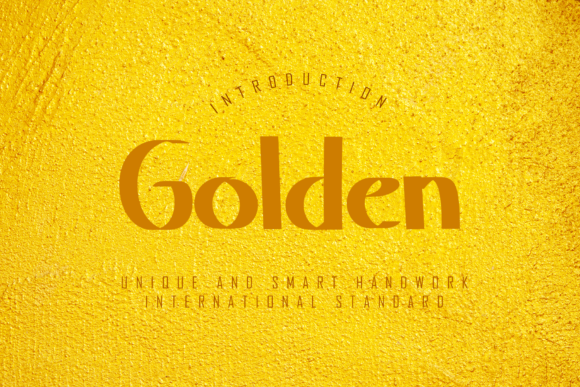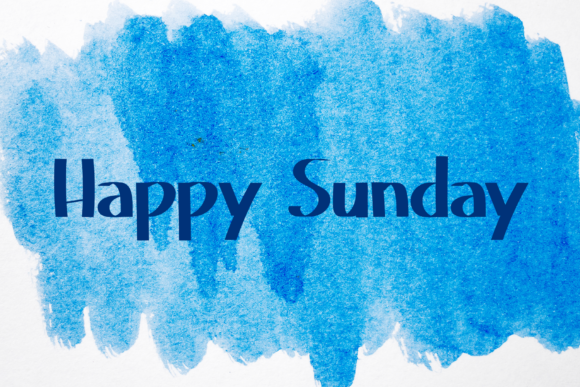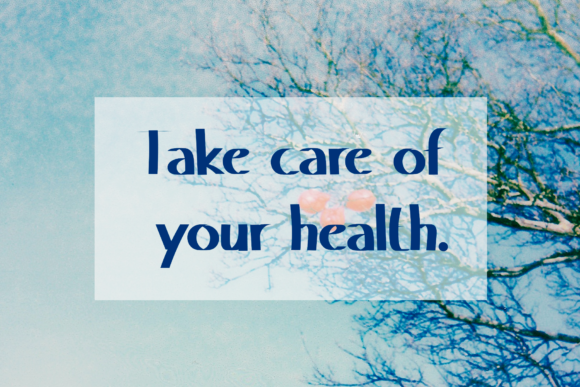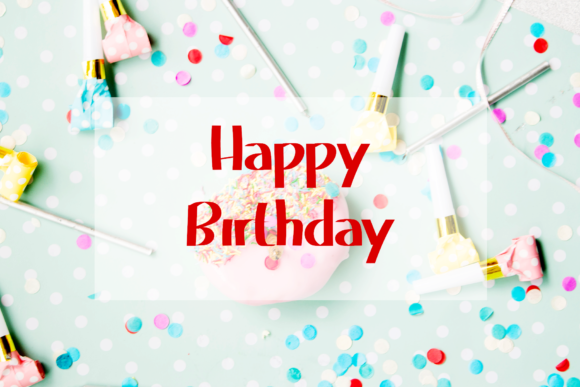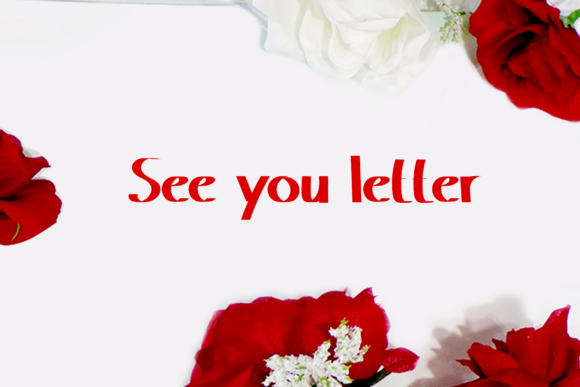
Discover the Timeless Elegance of Golden Font
You know that moment when a single design element can elevate an entire project from ordinary to extraordinary? For many creatives, it’s the perfect font that can make all the difference. Imagine being able to convey luxury, sophistication, and personality with just a few strokes of the pen – that’s exactly what the Golden Font offers.
This exquisite handwritten font is more than just a pretty face; it’s a tool designed to help you create stunning, one-of-a-kind designs that leave a lasting impression. Whether you’re a graphic designer, artist, or writer, Golden Font is an invaluable asset that will take your work to the next level. With its elegant, unique style, you’ll be able to craft outstanding creations that showcase your vision and talent.
Golden Font Key Features
- Font Family: A unique, custom-designed font family with a luxurious and elegant feel.
- Unique Characteristics: The Golden Font features a distinctive, sun-kissed color scheme and intricate details, giving it a truly unique and eye-catching appearance.
Designer Review: Golden Font
When I first saw the Golden Font, I was immediately drawn in by its ✨ eye-catching style. The font is perfect for those who want to add a touch of luxury and sophistication to their design projects. It’s great for use in branding, packaging, and advertising materials where you want to create a sense of high-end quality.
- ✨ The Golden Font has a unique and elegant style that sets it apart from other fonts.
- ✨ It’s highly customizable, making it easy to adjust the color and size to fit your design needs.
- ✨ The font is available in a range of weights, from light to bold, giving you plenty of options for creating different effects.
However, there are some limitations to consider: ⚠️ The Golden Font can be quite ornate, which may make it difficult to read at smaller sizes. Additionally, the font may not be suitable for use in text-heavy materials, such as articles or essays.
Overall, I think the Golden Font is a great choice for designers who want to add a touch of luxury to their projects. While it may have some limitations, its unique style and high level of customization make it a versatile and effective tool for a wide range of design applications.
The Golden Font is ideal for creating elegant and luxurious designs. It’s commonly used in:
- High-end branding and marketing materials
- Luxury packaging and labels
Remember to use the Golden Font sparingly and in combination with other elegant fonts to create a cohesive and sophisticated design.